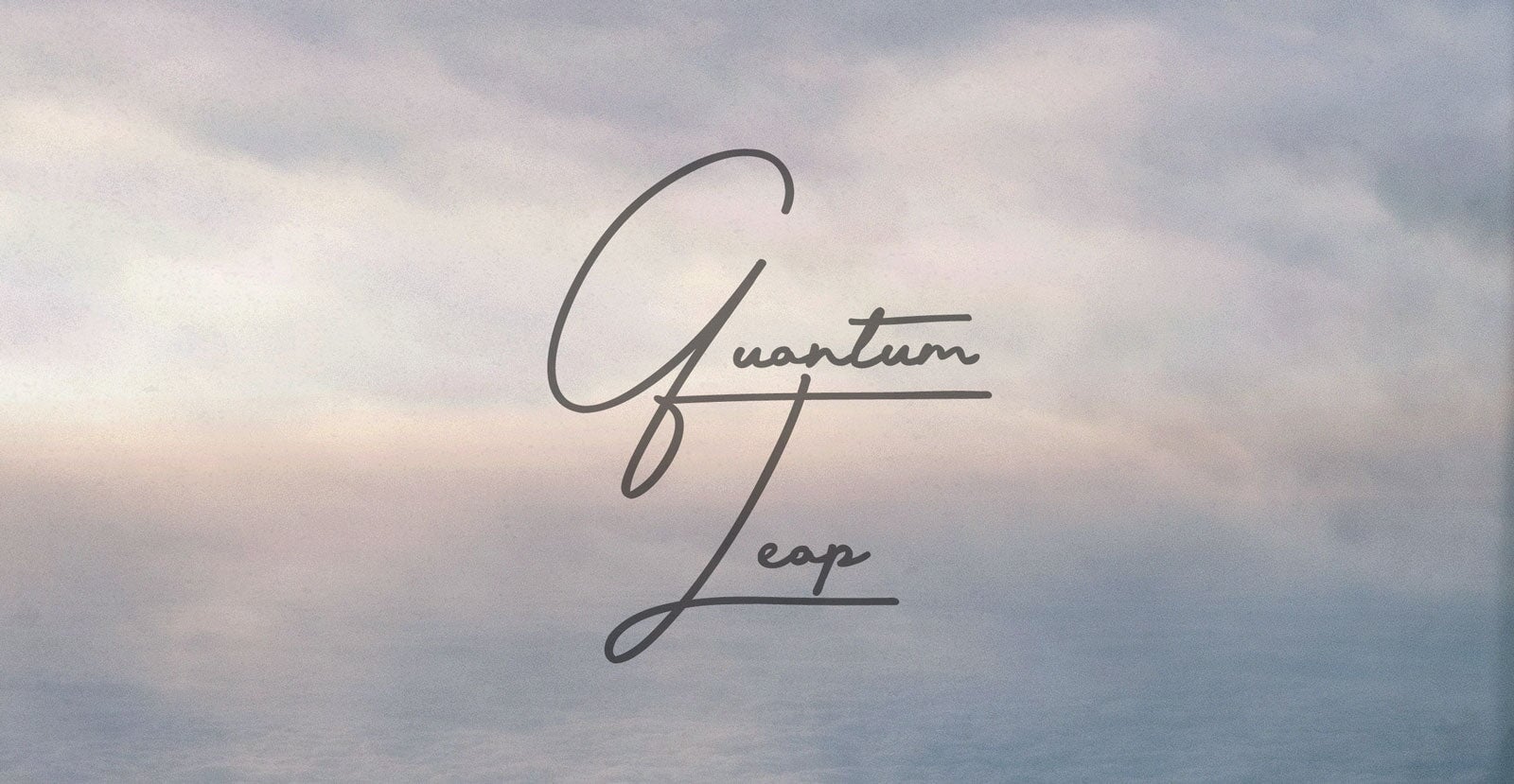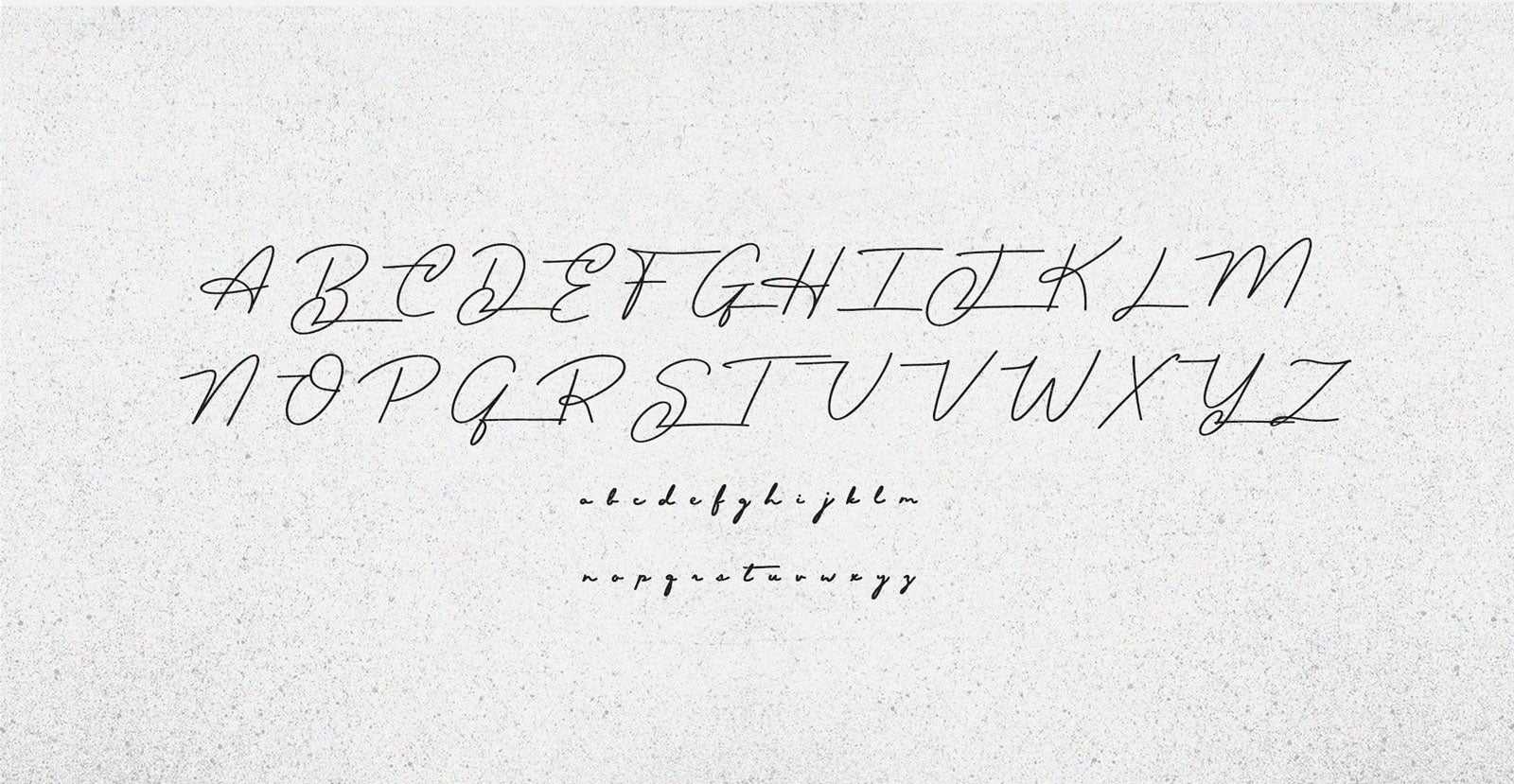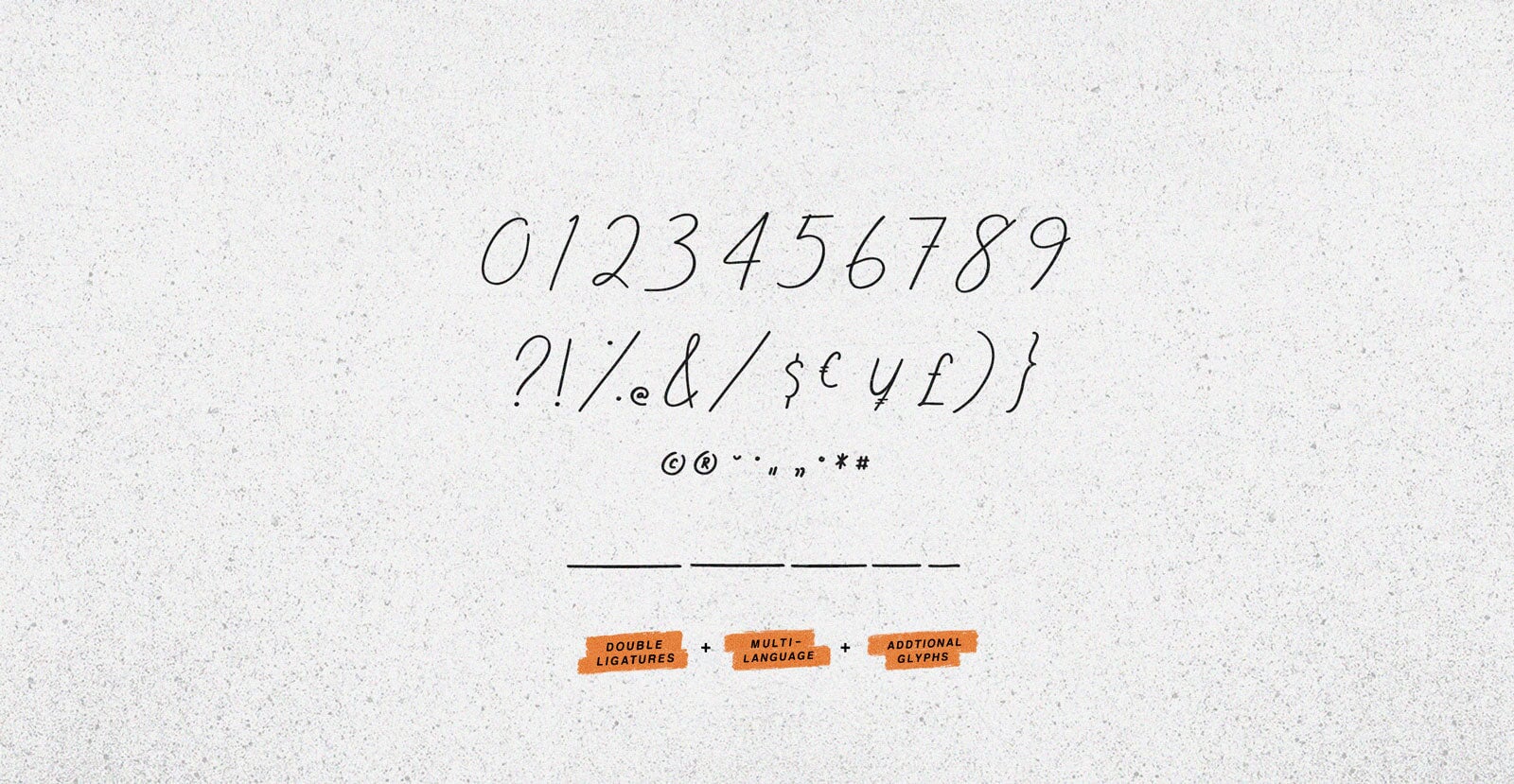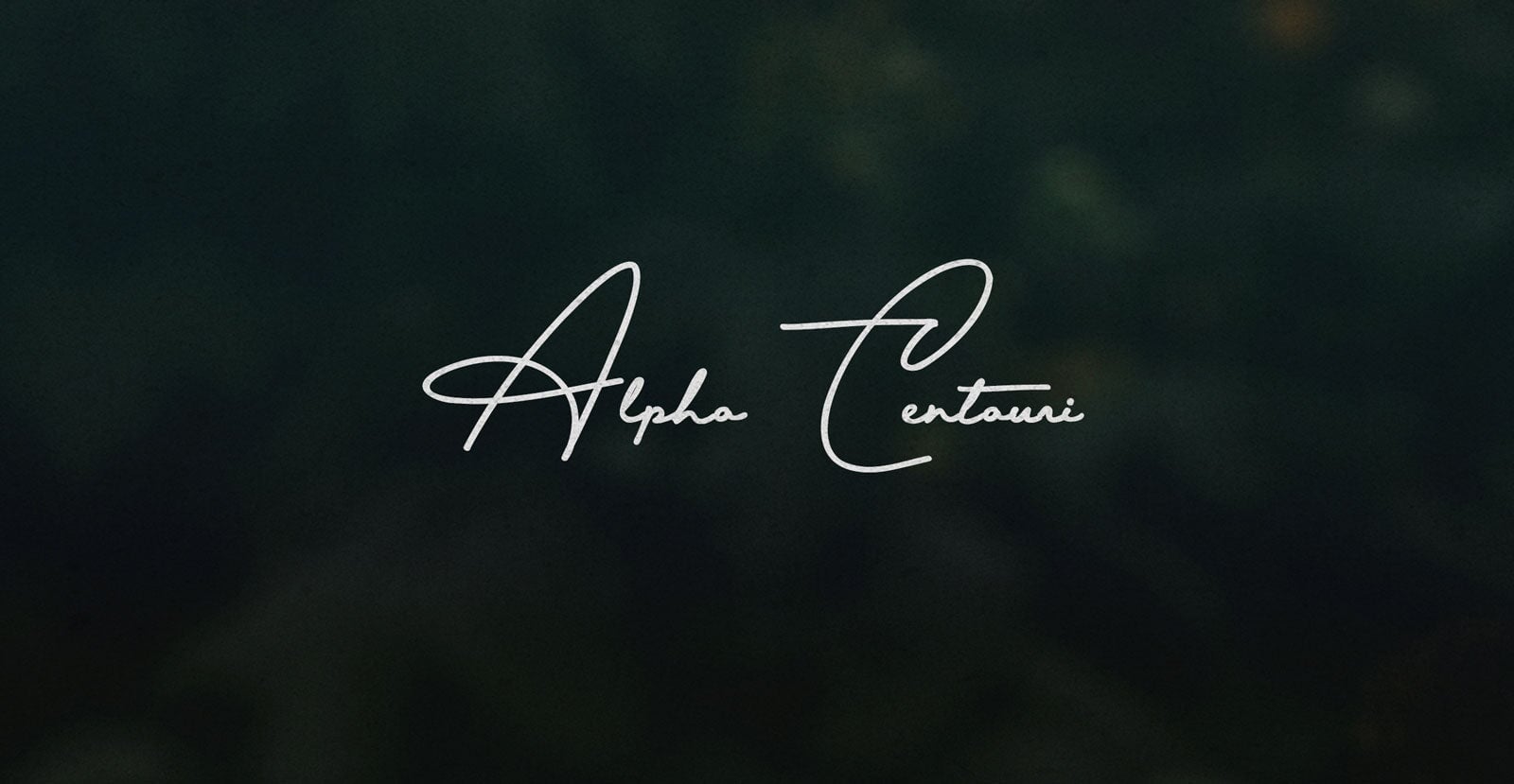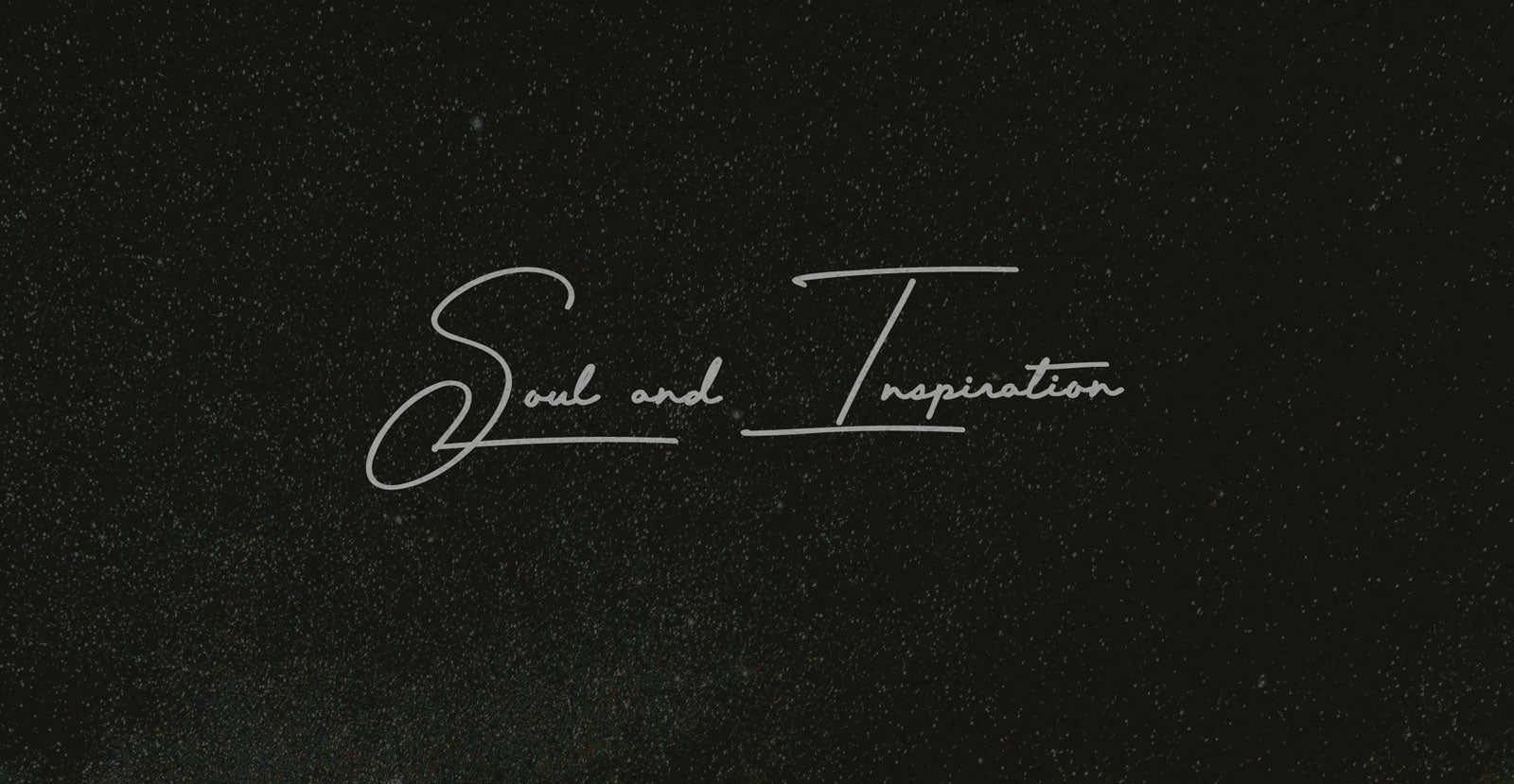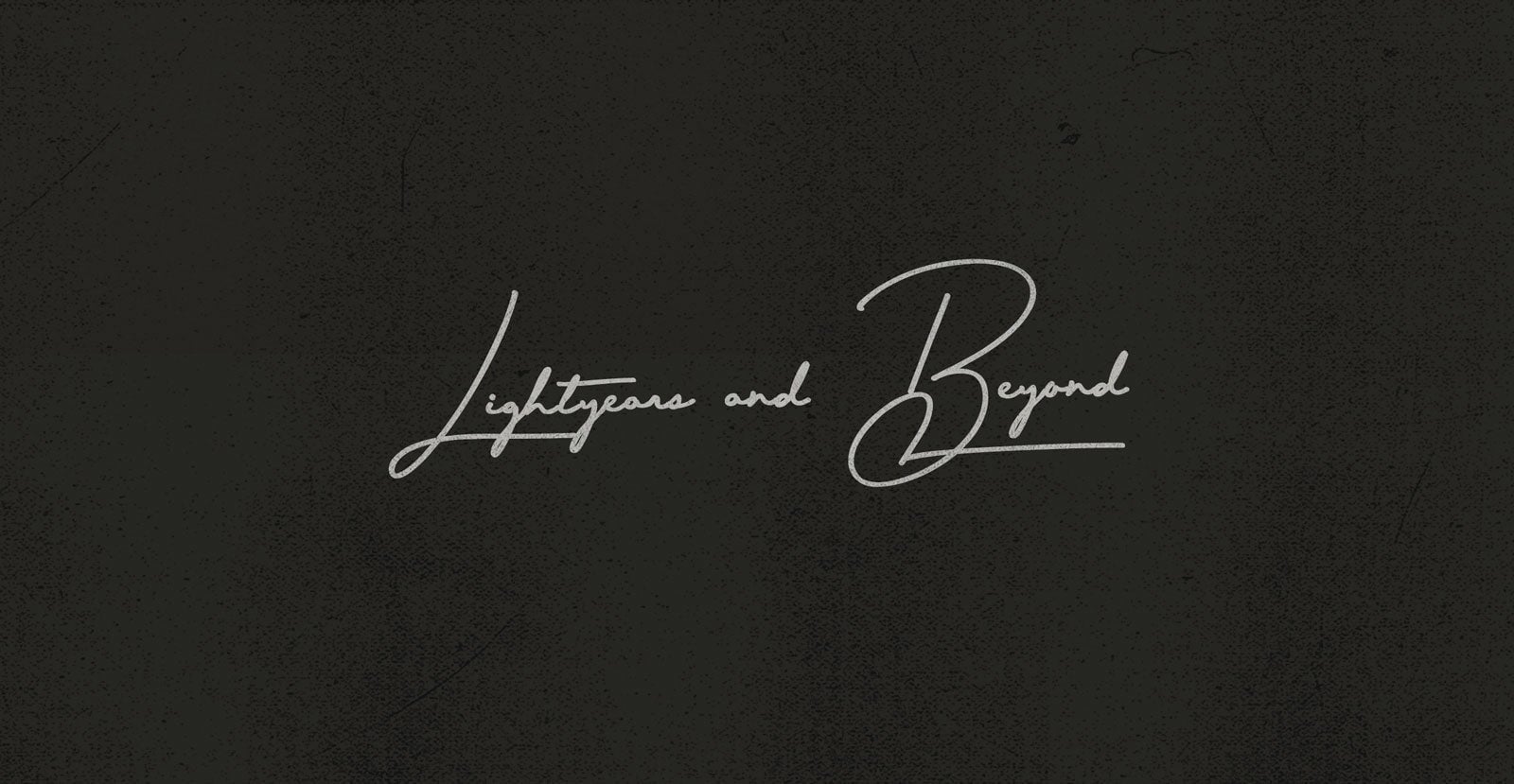
Quantum Leap
Handwritten Pen Script Font
Jump into the unknown where the past, present, and future blur into one. It’s not just time travel—it’s an unpredictable algorithm of fate, where the next destination is never certain, and the only rule is to keep moving forward.